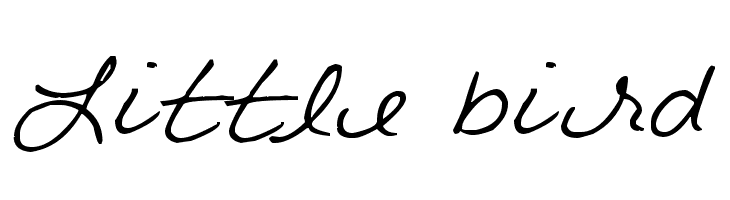
A bold, distressed font with a rugged, weathered appearance.
A playful, hand-drawn style font with bold, irregular characters.
A bold, playful font with thick, irregular strokes and a hand-drawn feel.
A bold, textured font with diagonal line patterns, perfect for impactful display use.
A bold, condensed, and decorative font with geometric influences.
A bold, distressed font with a rugged, industrial aesthetic.
A dynamic and elegant handwritten script with fluid, cursive strokes.
A bold, angular, and futuristic font with a slanted orientation.